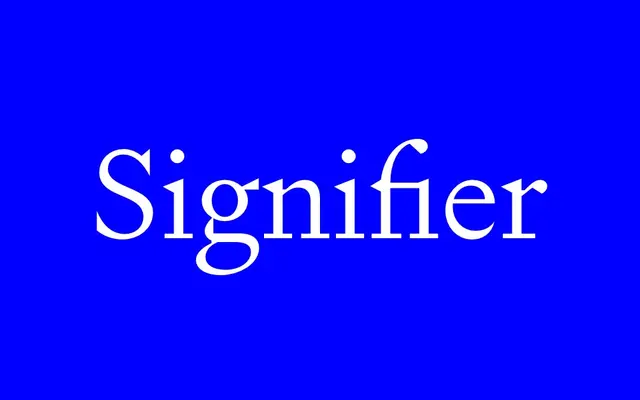
Signifier
Klim Type Foundry · Kris Sowersby · 2020
Signifier specimen from Klim Type Foundry
A Brutalist response to 17th century Fell Types, with sharp vectors and machine-cut precision across seven weights with italics.
An old-style serif by Kris Sowersby that takes the Oxford Fell Types as a starting point and recasts their lead-and-antimony texture as deliberately sharp digital vectors. Seven weights run from Thin to Black, all with italics, and a variable weight axis is supplied with the full family. Sits well in art, fashion and editorial work where a serif needs to feel both historic and unmistakably contemporary.
Klim classifies it as Modern: Oldstyle; a Brutalist response to 17th century typefaces, recasting the lead, antimony and tin of the Fell Types into Bezier curves and sharp vectors determined by machine logic.